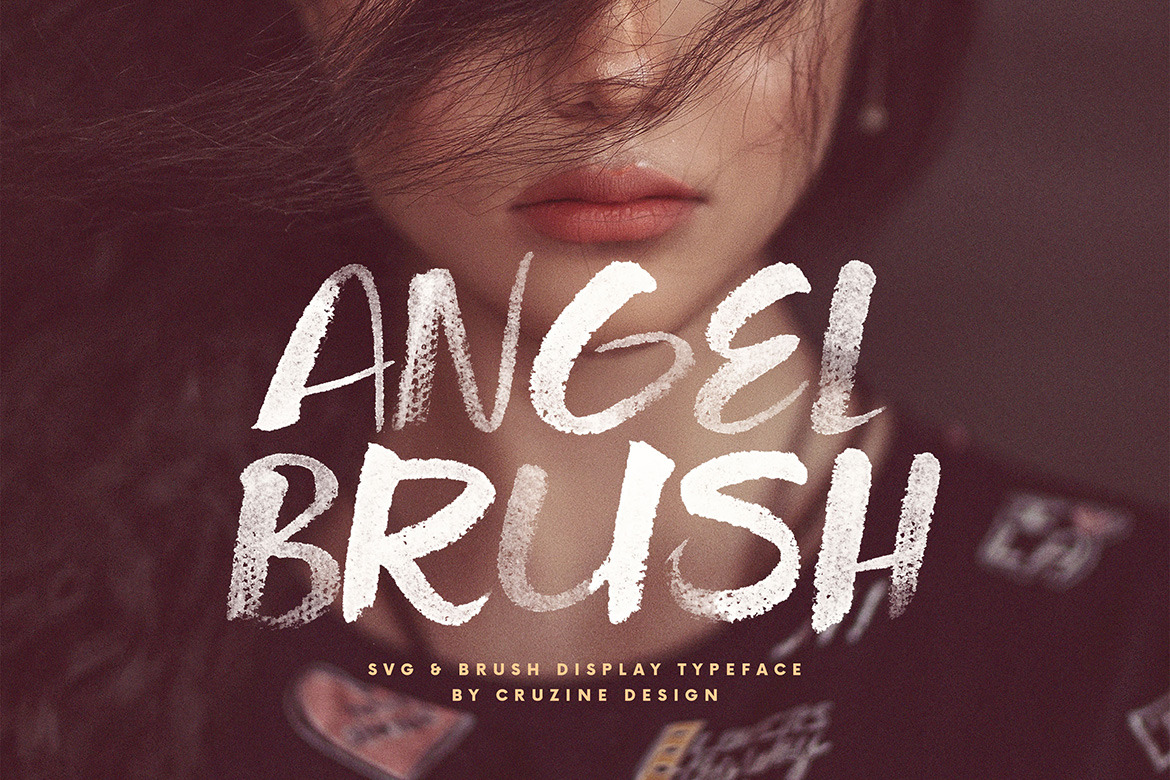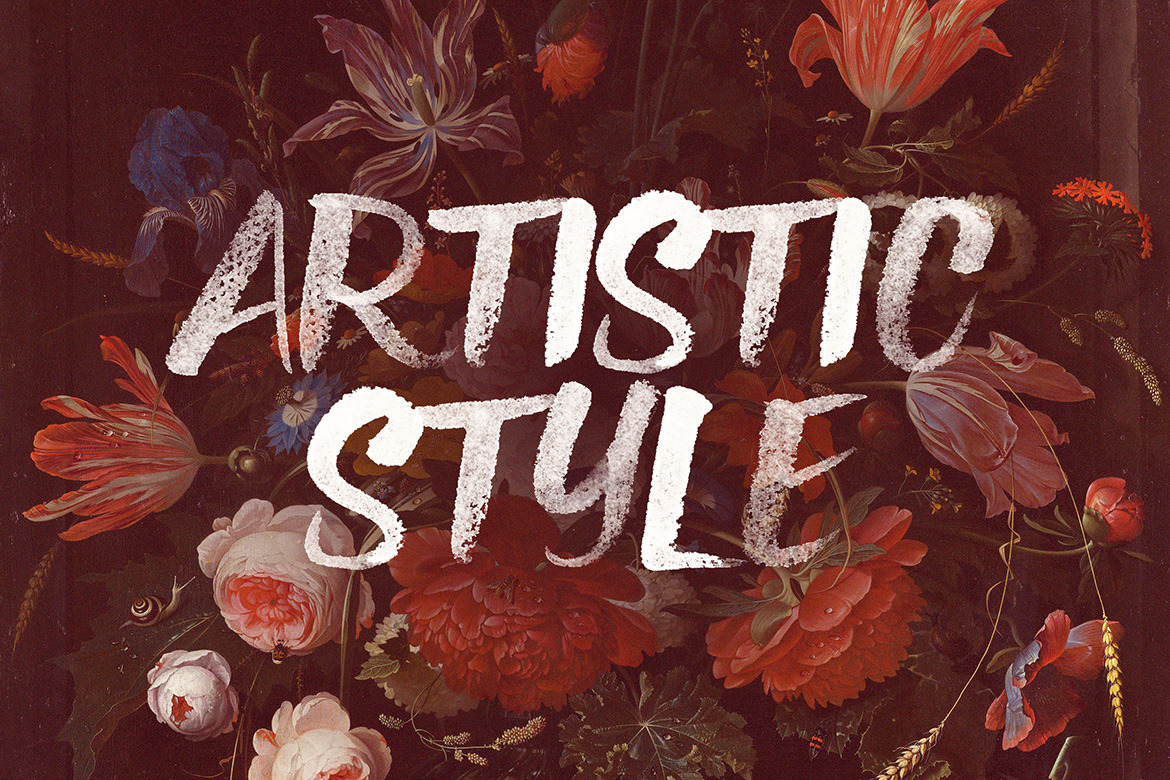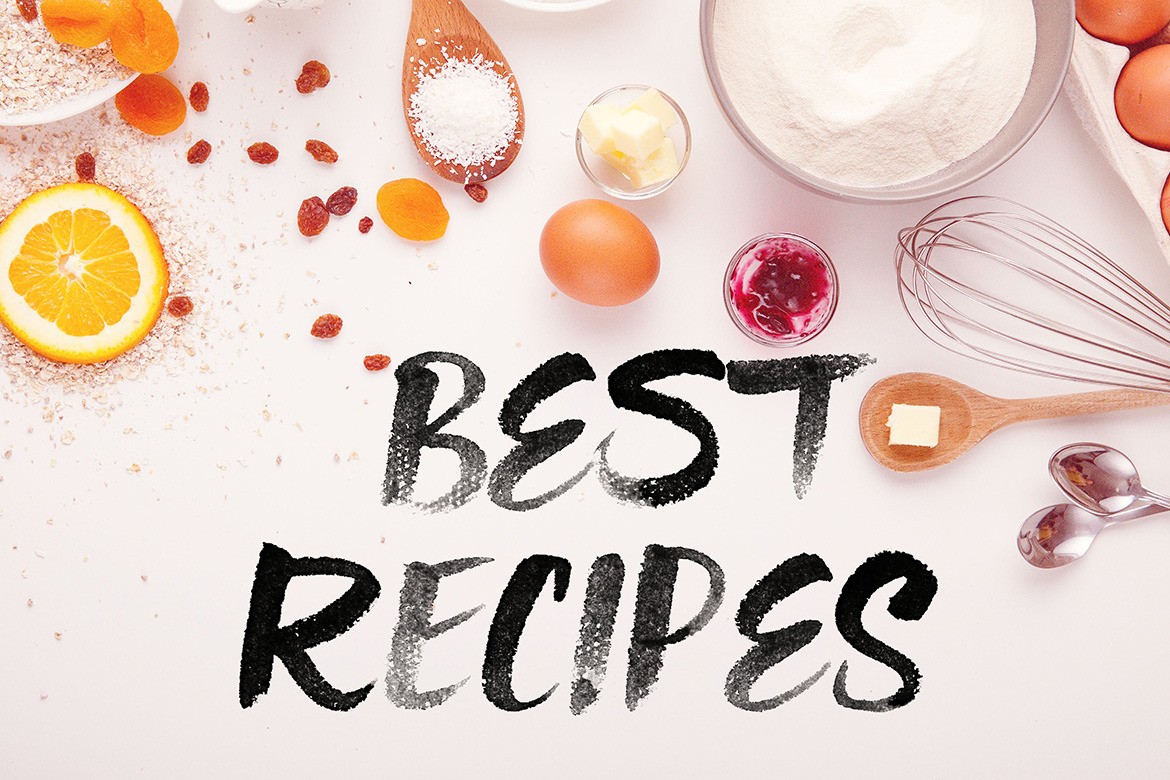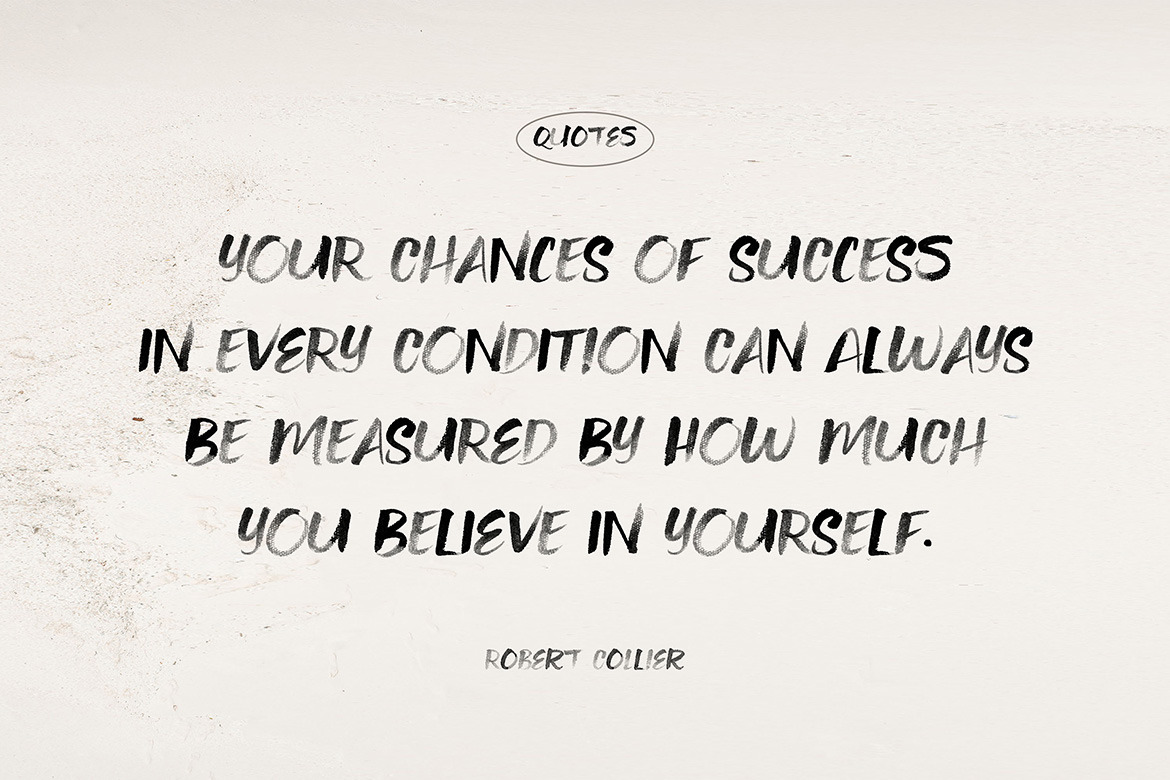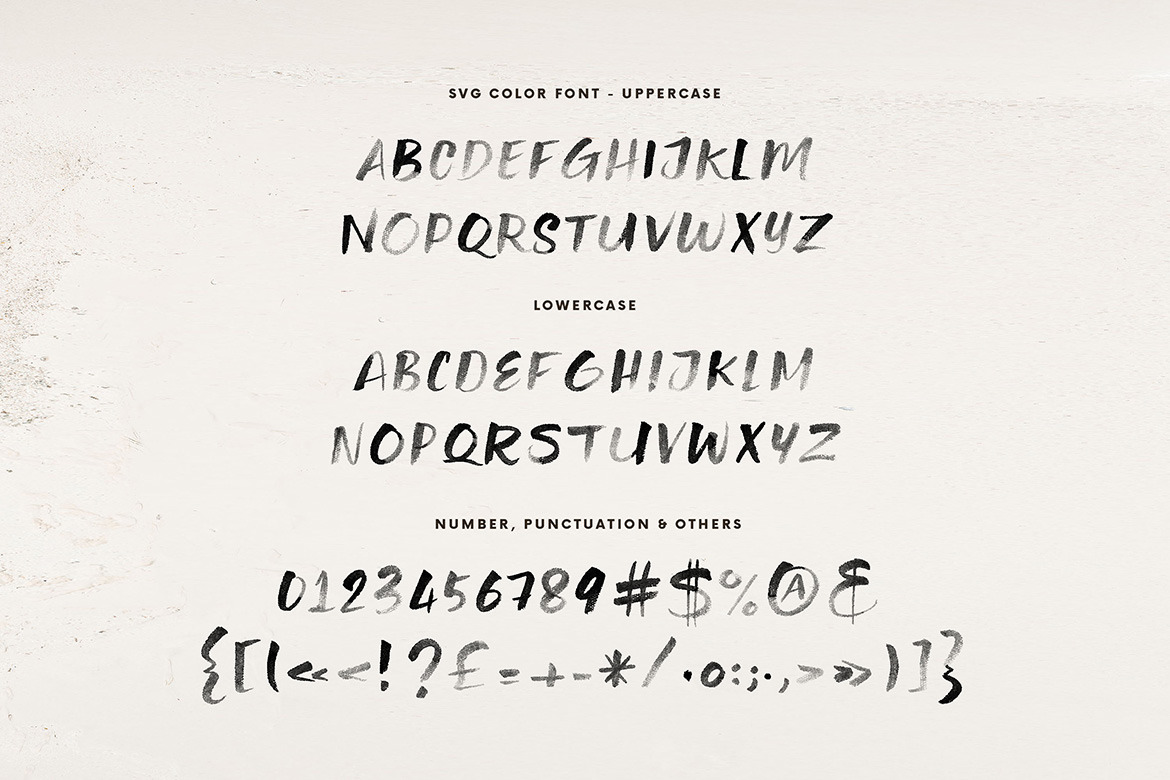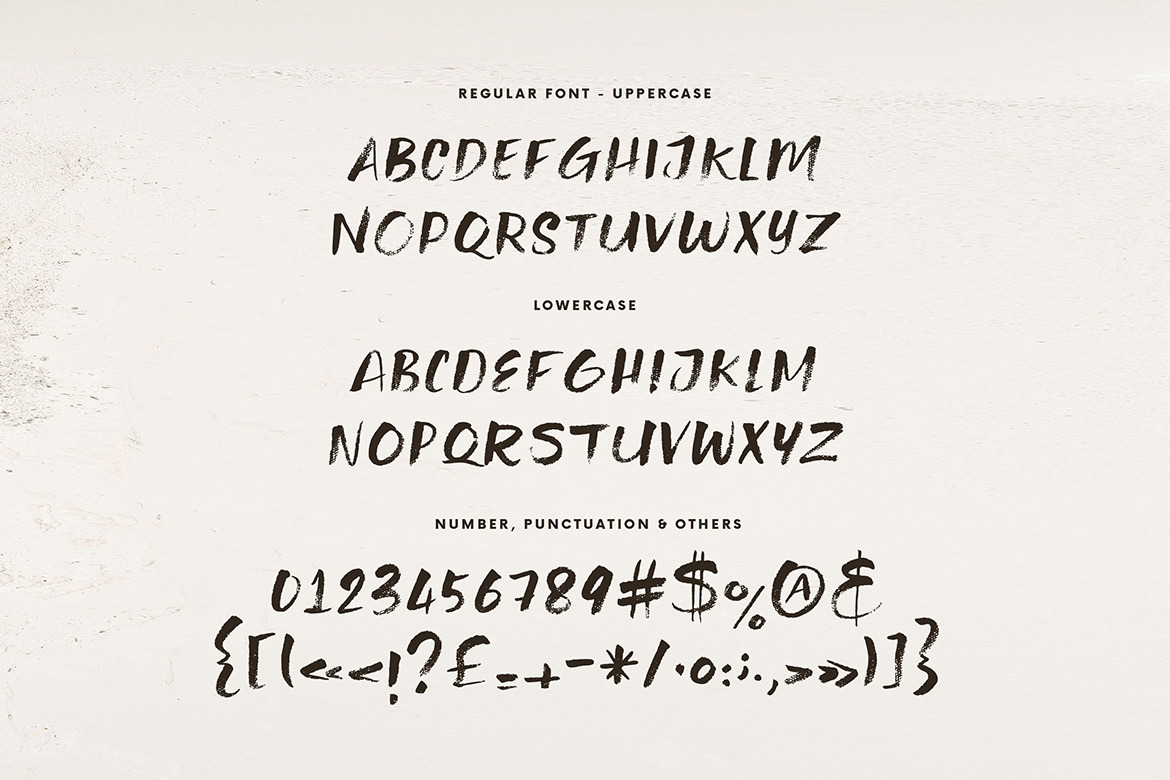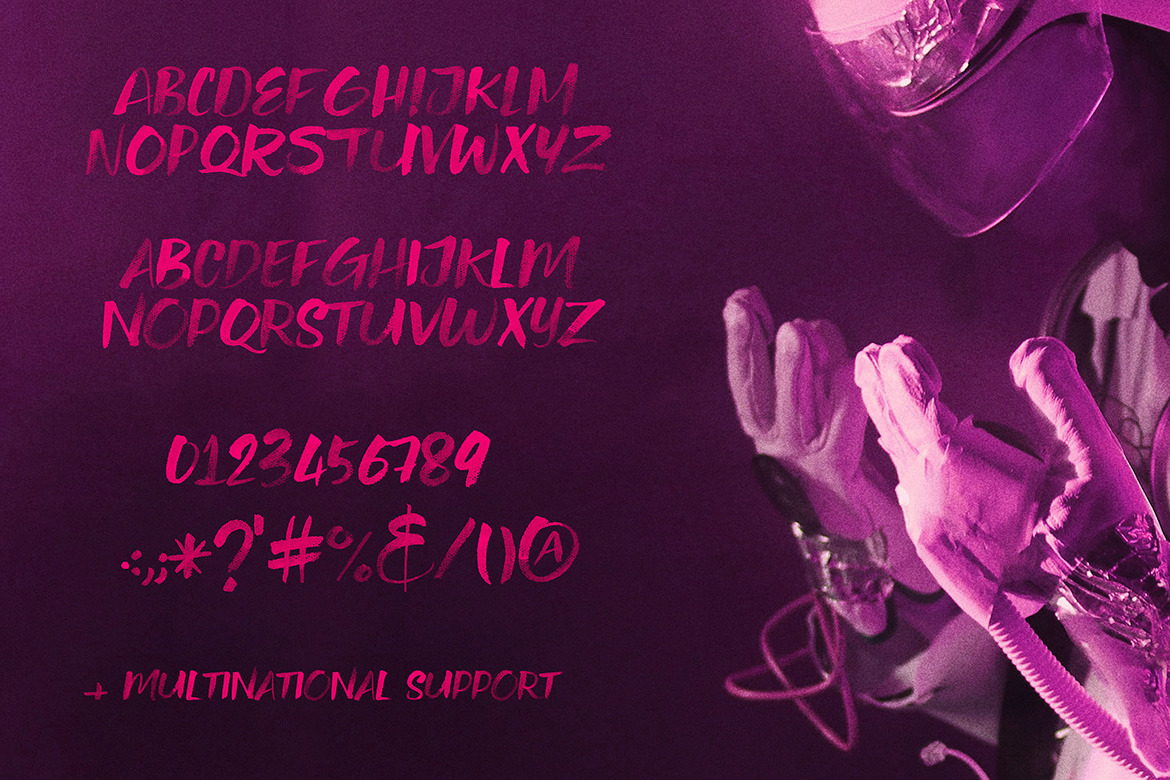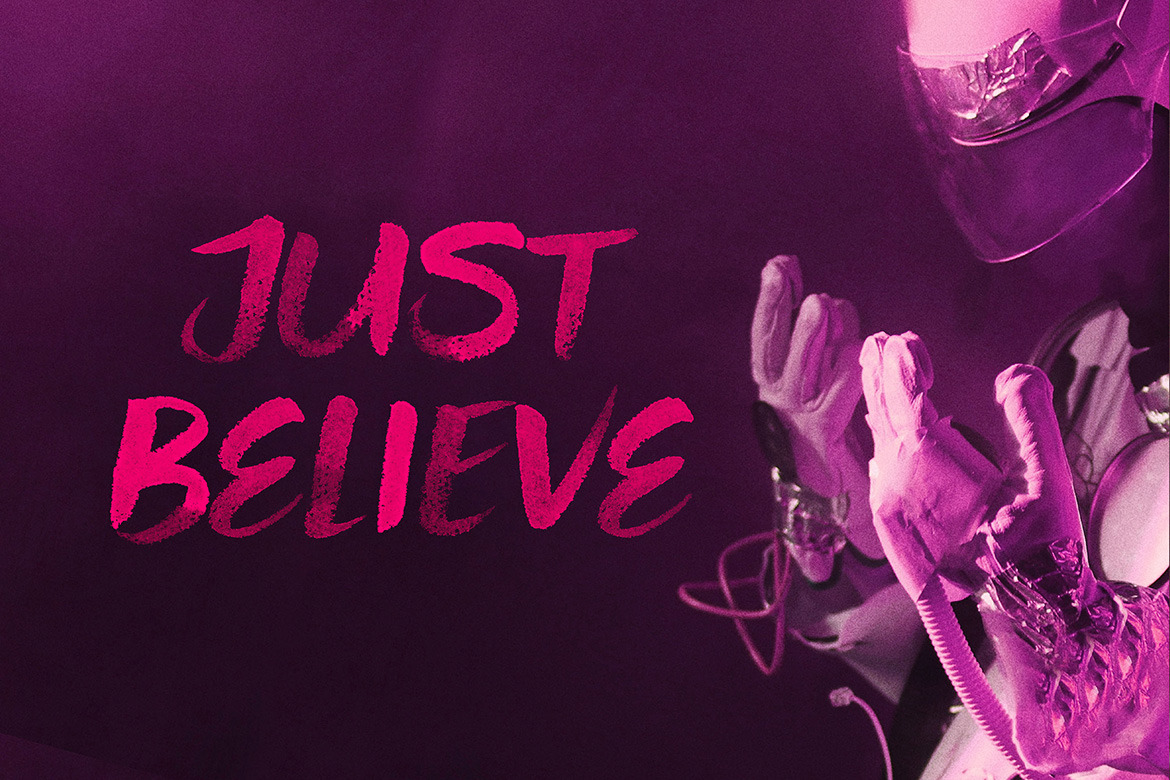
Angel Svg Brush Font
Brush, rough, elegant or grunge style script display font for your new projects. Handwritten with organic watercolor brush. Great for grunge, urban or artistic projects!